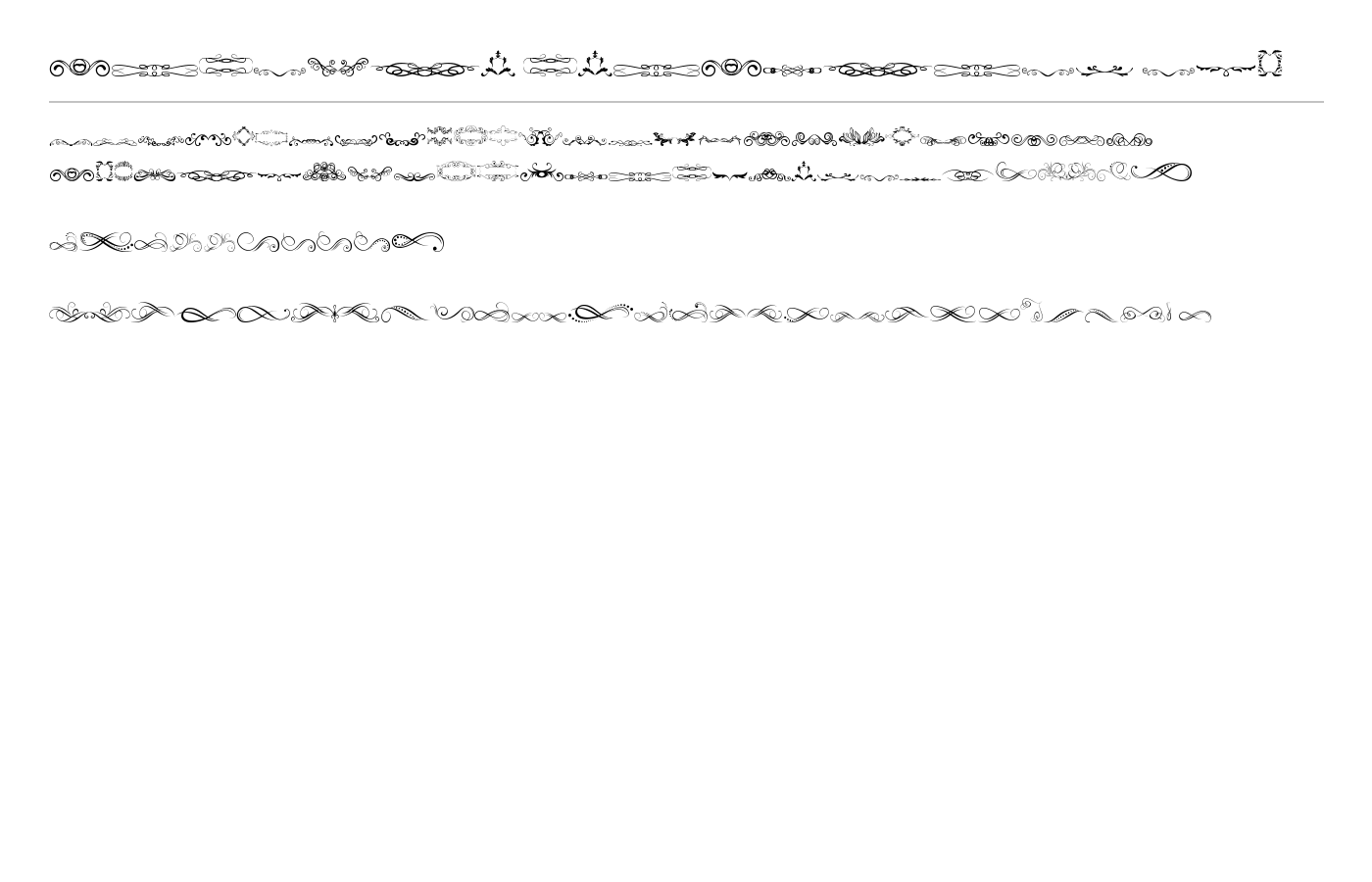
Another Ornaments tfb is a highly decorative ornamental font featuring intricate, swirling flourishes and delicate linework. Perfect for adding a vintage or elegant touch, its fine, detailed embellishments suit projects like invitations, luxury branding, and decorative headers where a sophisticated and artistic flourish is desired. This font excels when used as ornamental accents to elevate design with a timeless, graceful style.
another ornaments tfb Font
About another ornaments tfb Font
| Font family | another ornaments tfb Font |
| Designer | kaiserzharkhan |